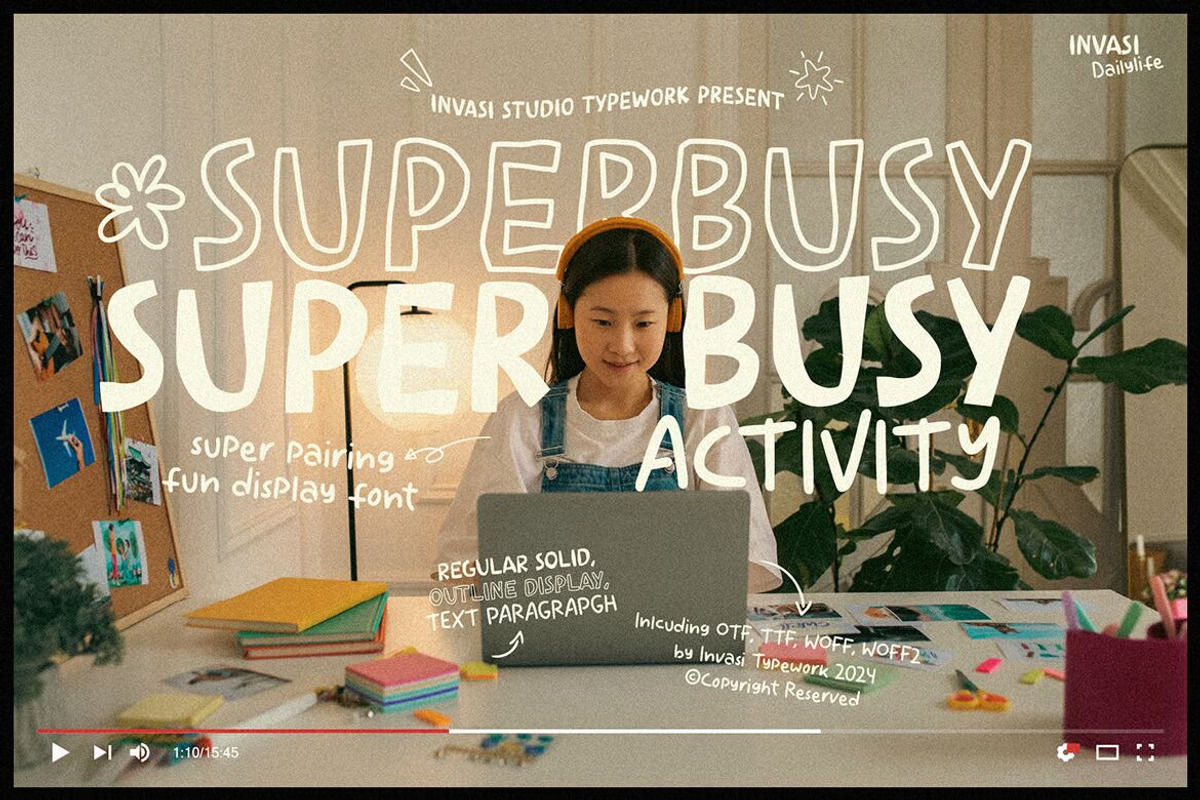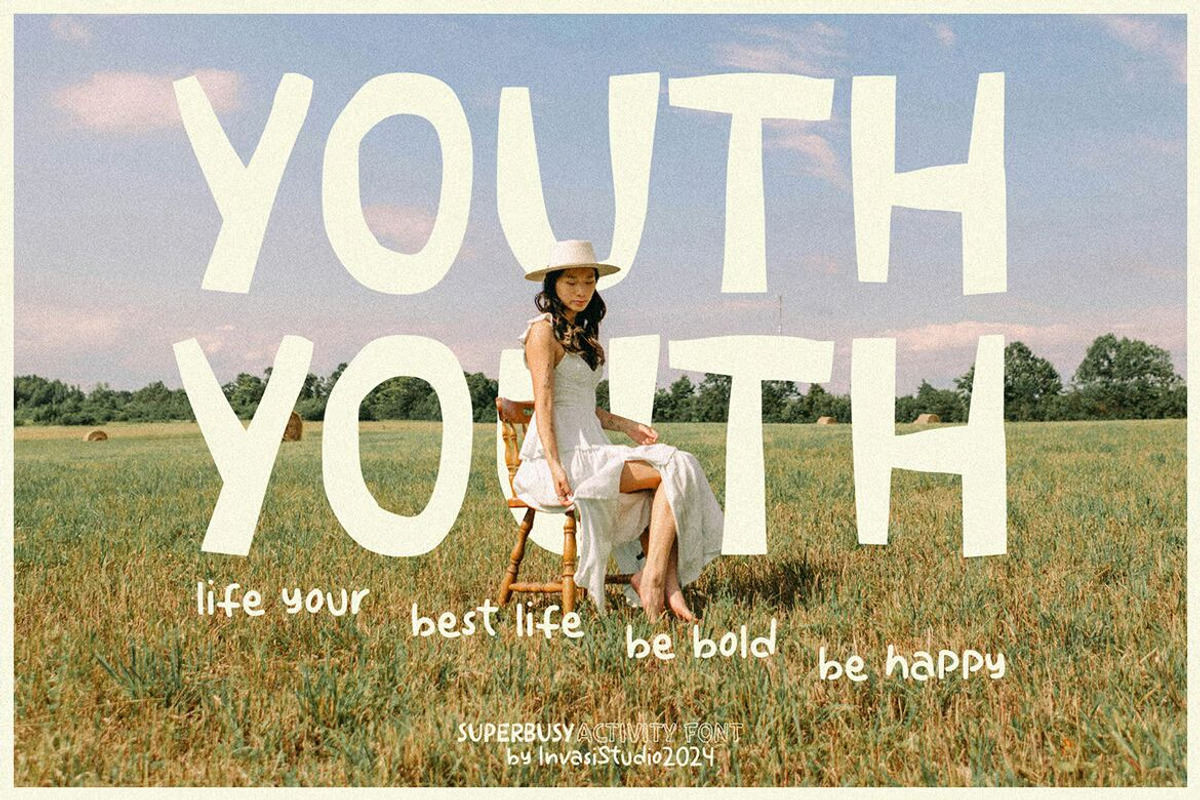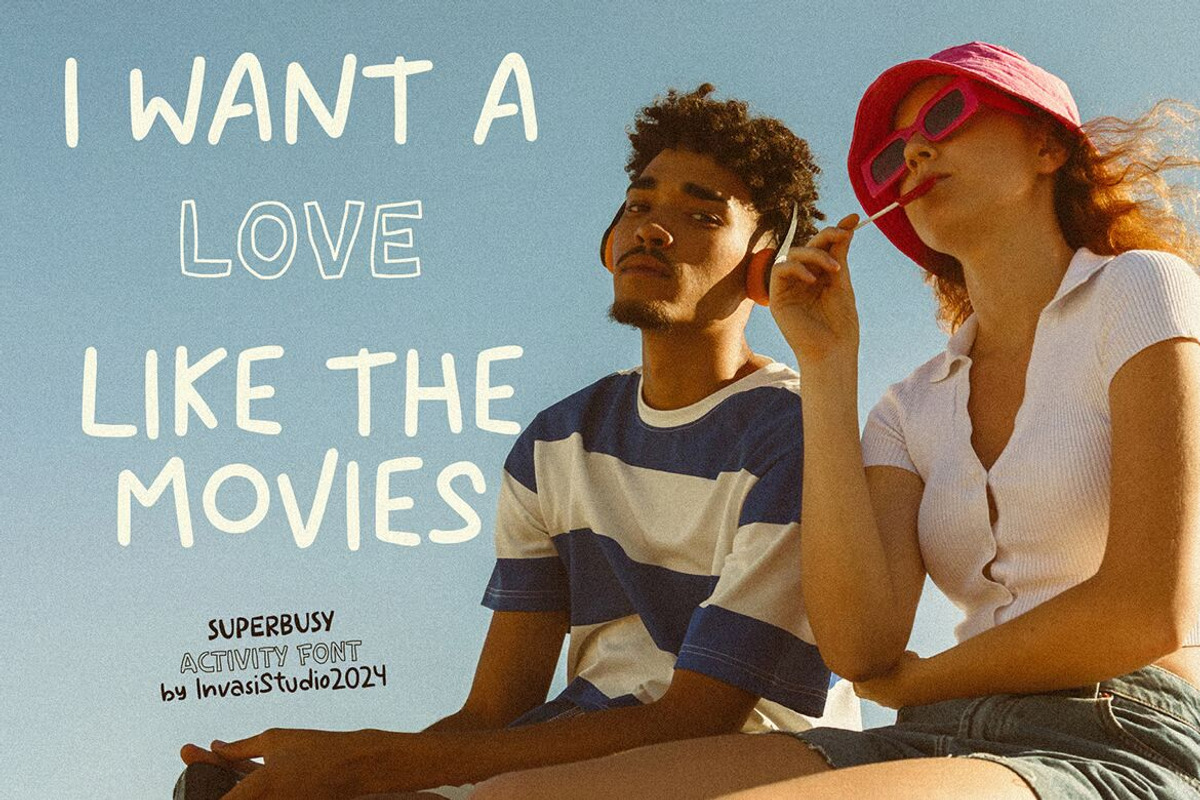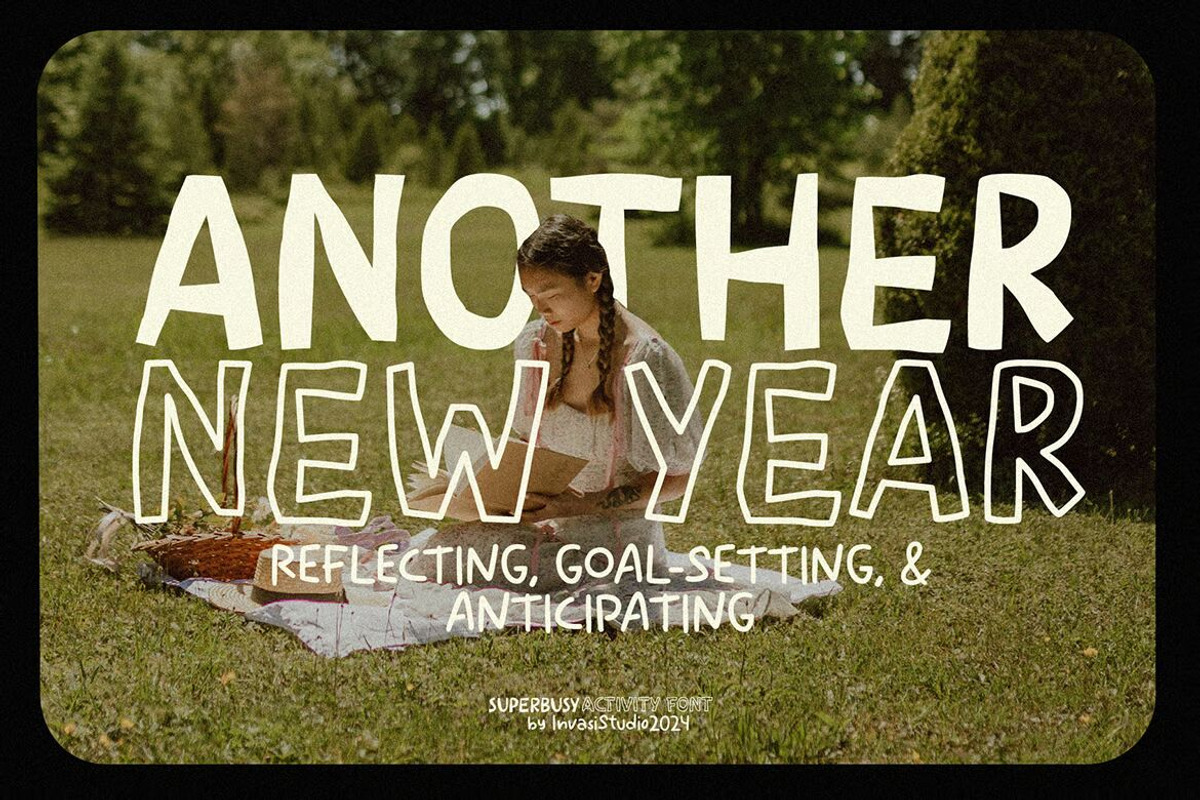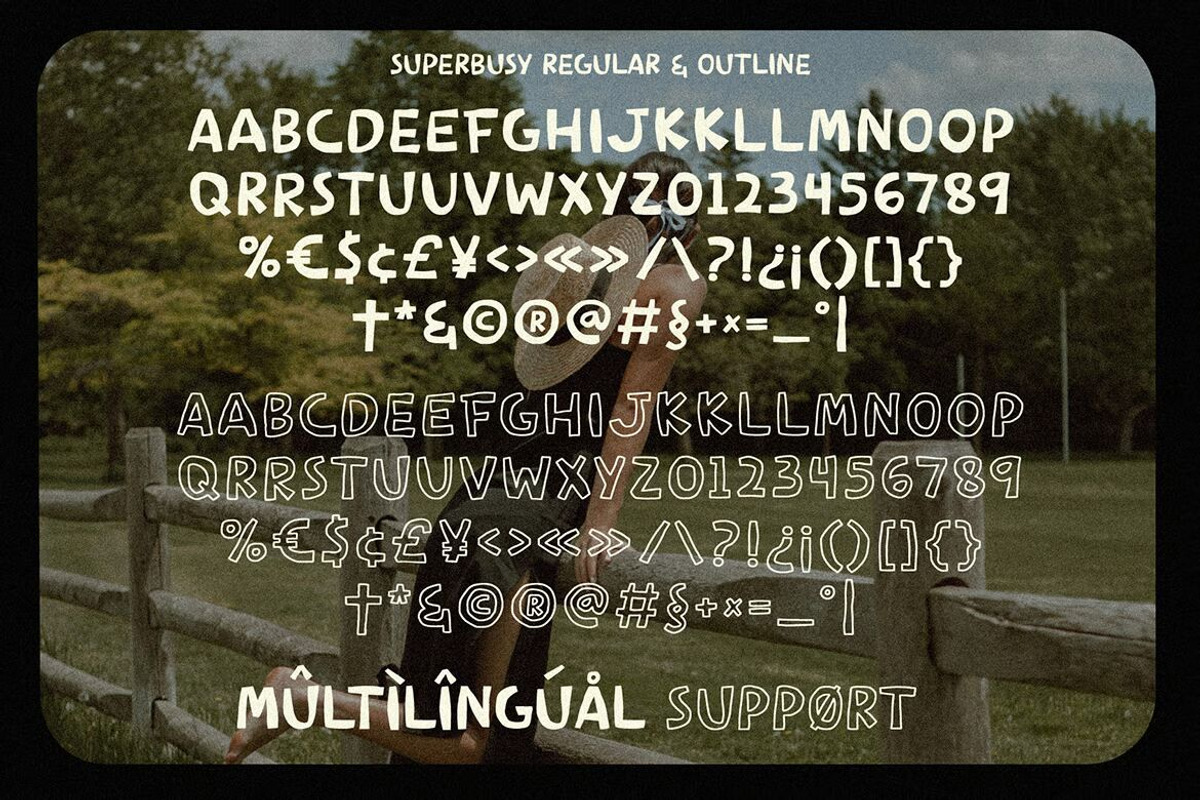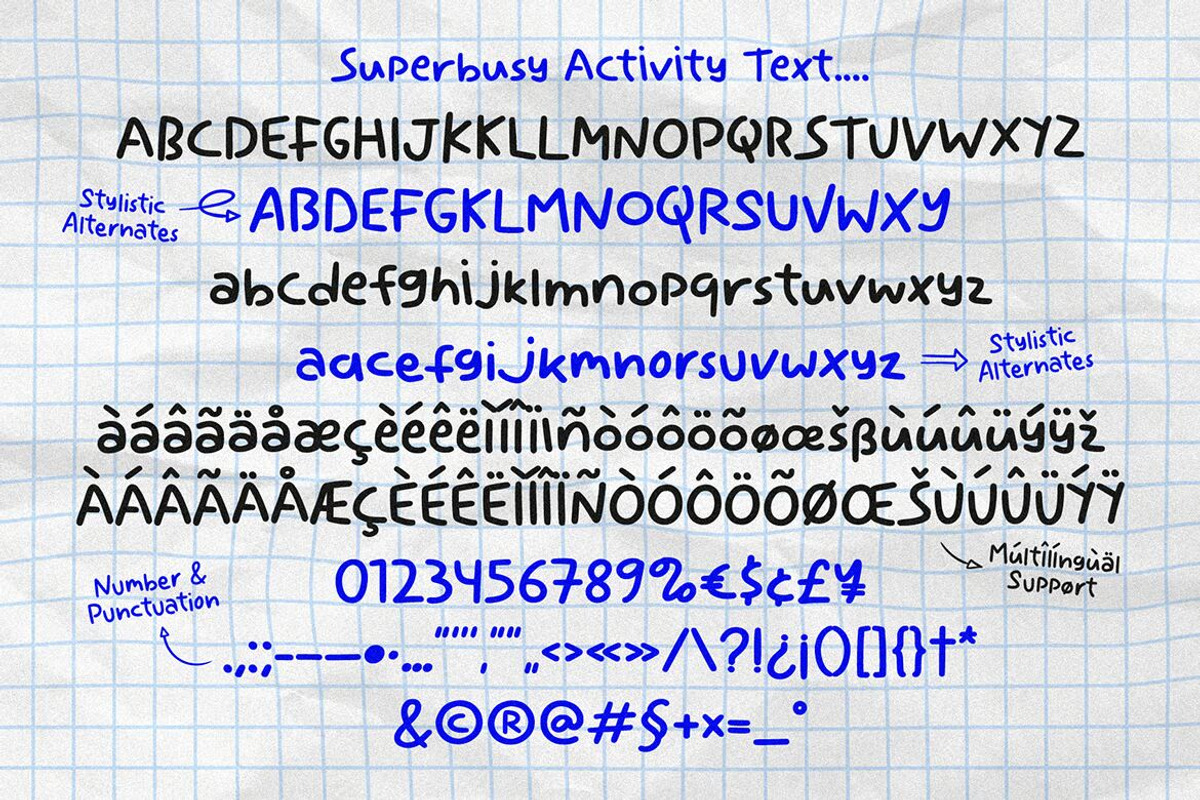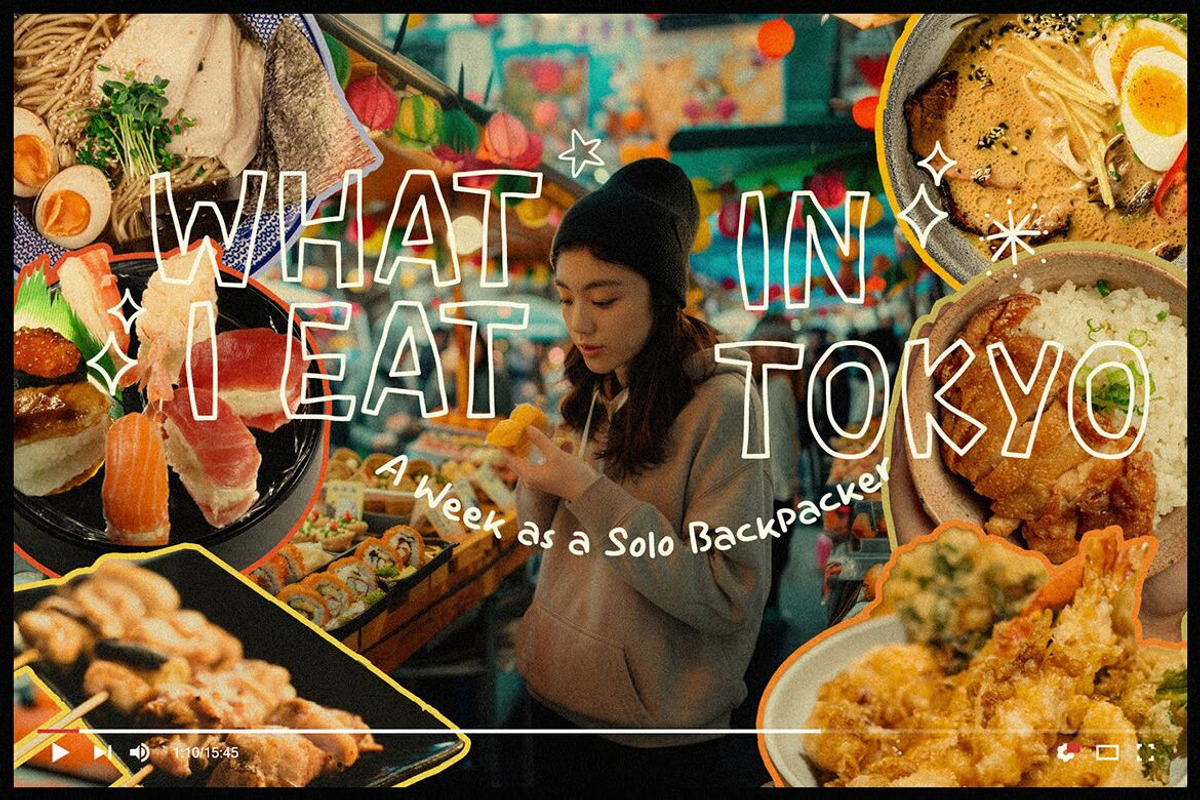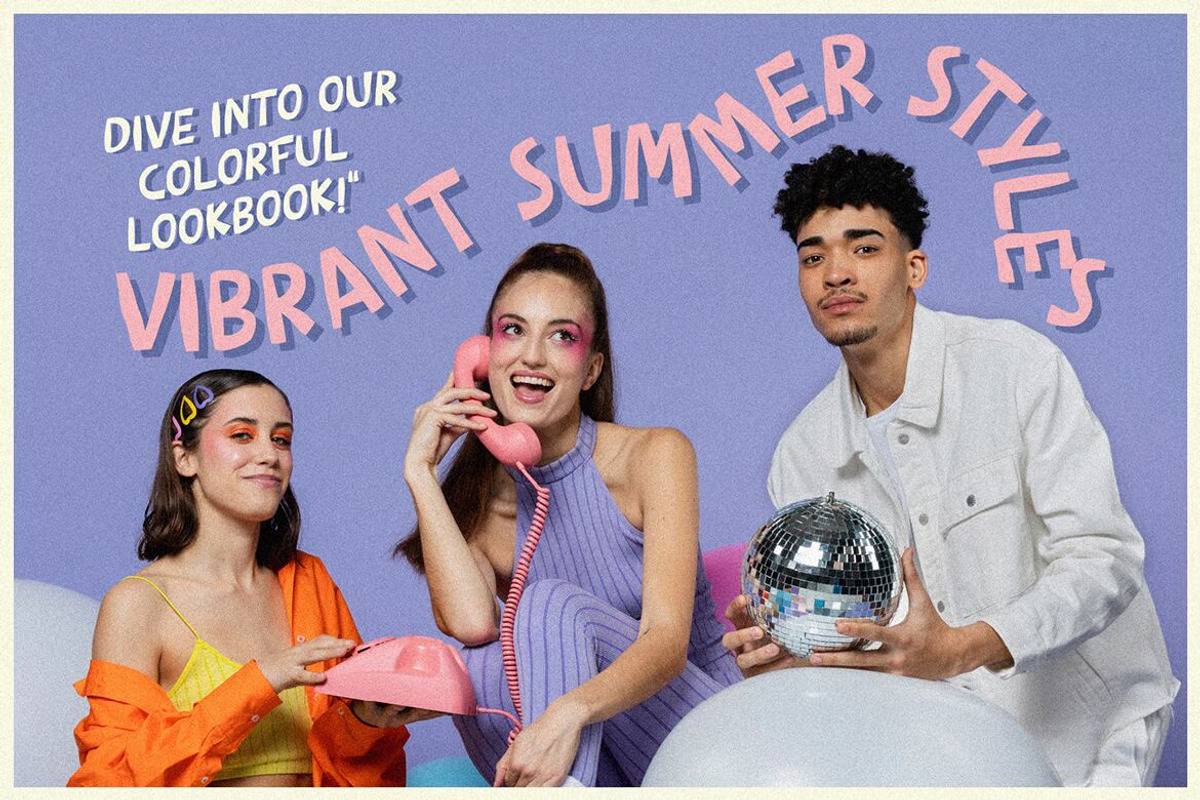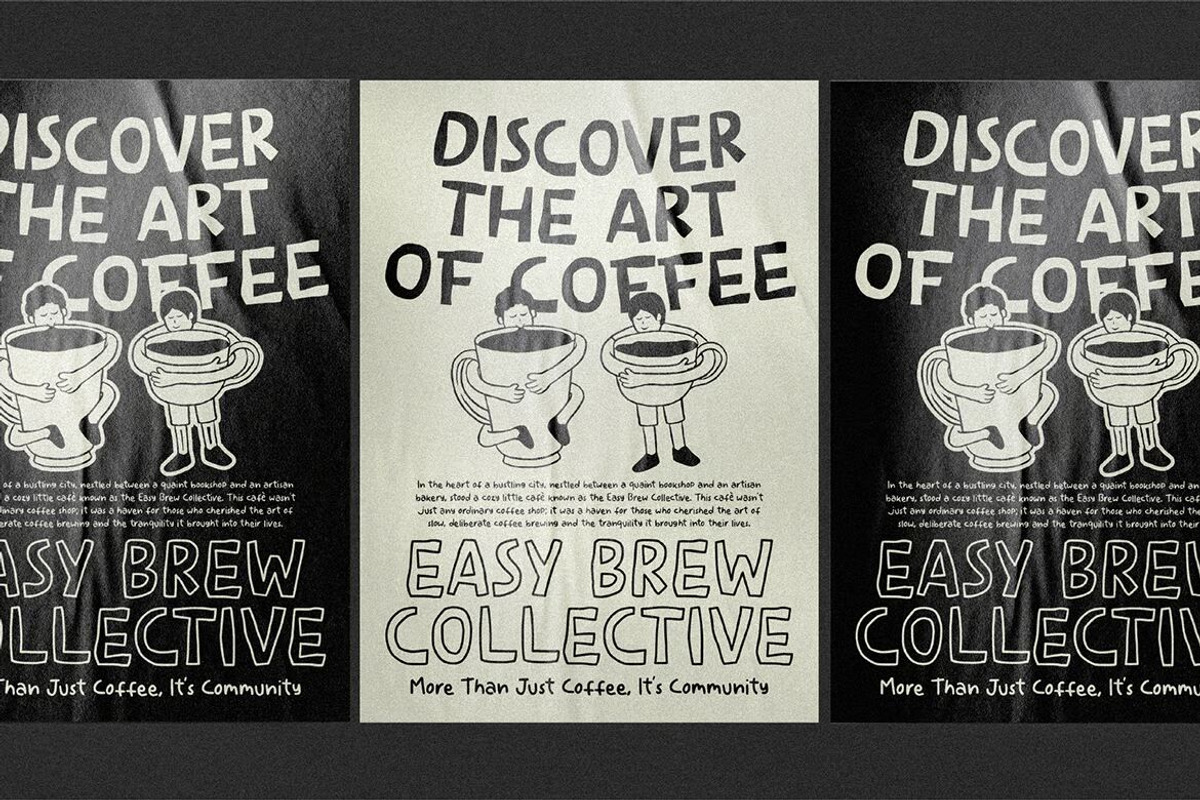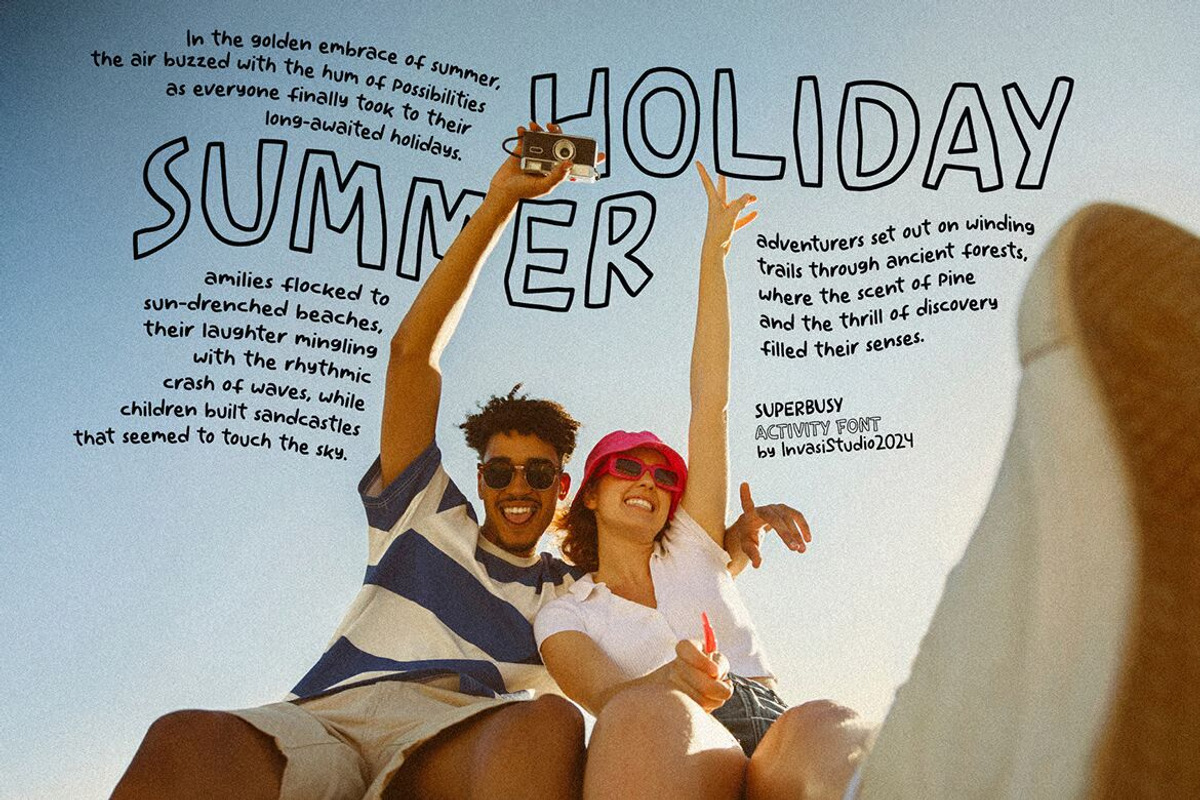
Superbusy Activity Fun Pairing Font
Introducing Superbusy Activity – the ultimate font for designers seeking a playful and cheerful touch! With its unique handwriting freehand style, this versatile font comes in three exciting styles: Regular, Outline, and Text. Perfect for adding a fun twist to your daily and travel vlog titles, headlines, logos, and branding projects. Superbusy Activity’s uppercase display design ensures your message stands out with vibrant energy and creativity.
Transform your projects with a font that’s as dynamic and engaging as your ideas. Make every design memorable and full of life with Superbusy Activity – the perfect choice for bringing joy and enthusiasm to your creative work!
- Alternates and Ligatures
- Multilanguage Supports 60+ Latin based languages